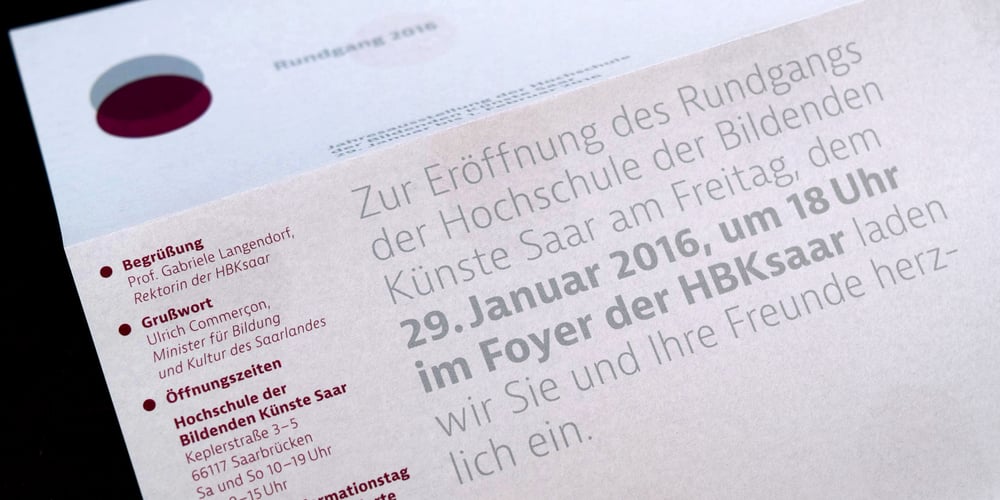
JAF Bernini Sans
JAF Bernini Sans font
JAF Bernini Sans Font Family was designed by Tim Ahrens and published by Just Another Foundry. JAF Bernini Sans contains 150 styles and family package options. JAF Bernini Sans’s finely balanced weight distribution and open shapes make it a great text face, while the wide variety of weights and widths provide the designer with a rich toolbox for headings and display typography. What is more, each style of Bernini Sans includes two fonts: Bernino Sans and his sister Bernina Sans – a more playful version with alternate shapes such as round dots and a double-storey g.